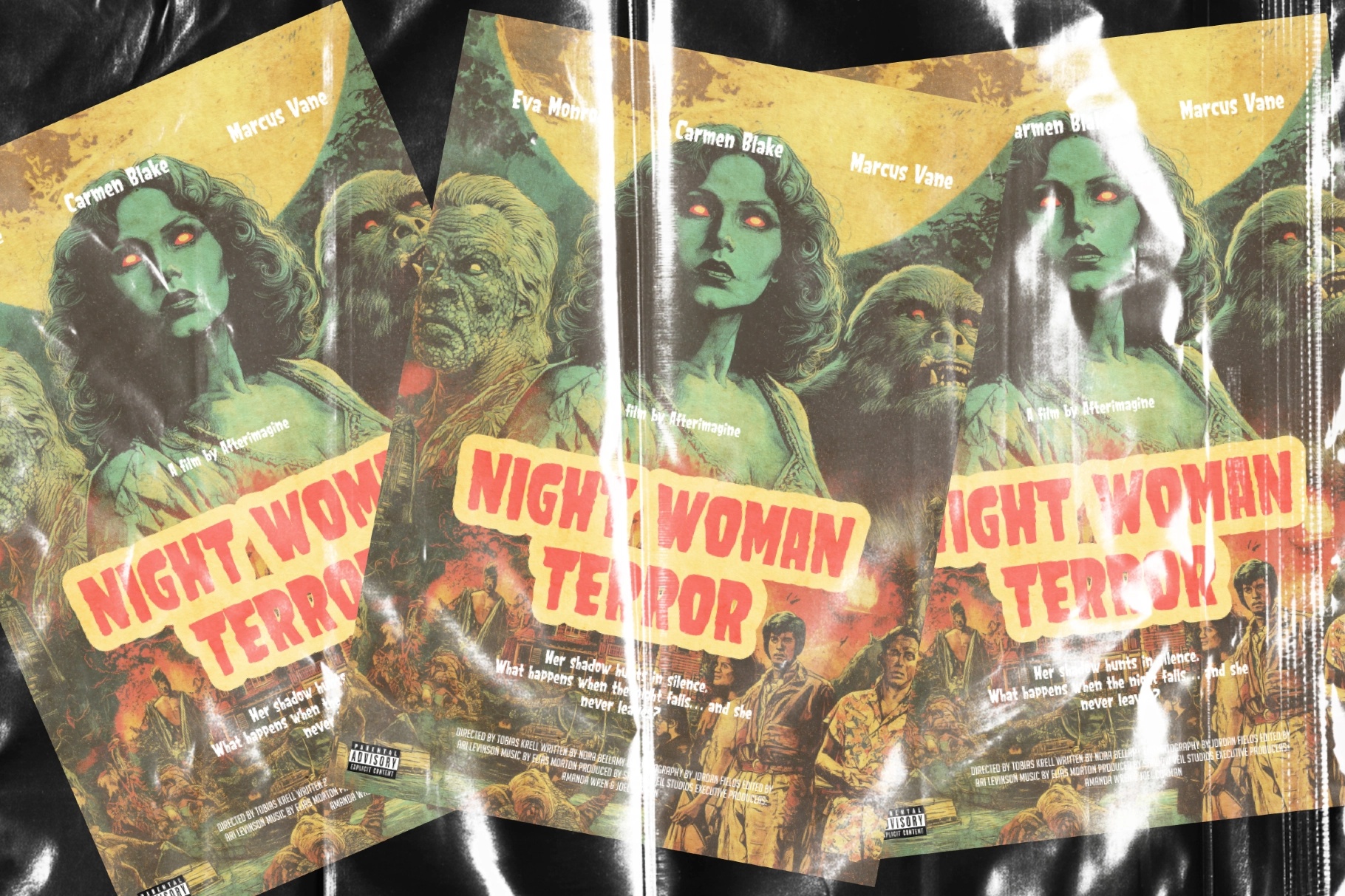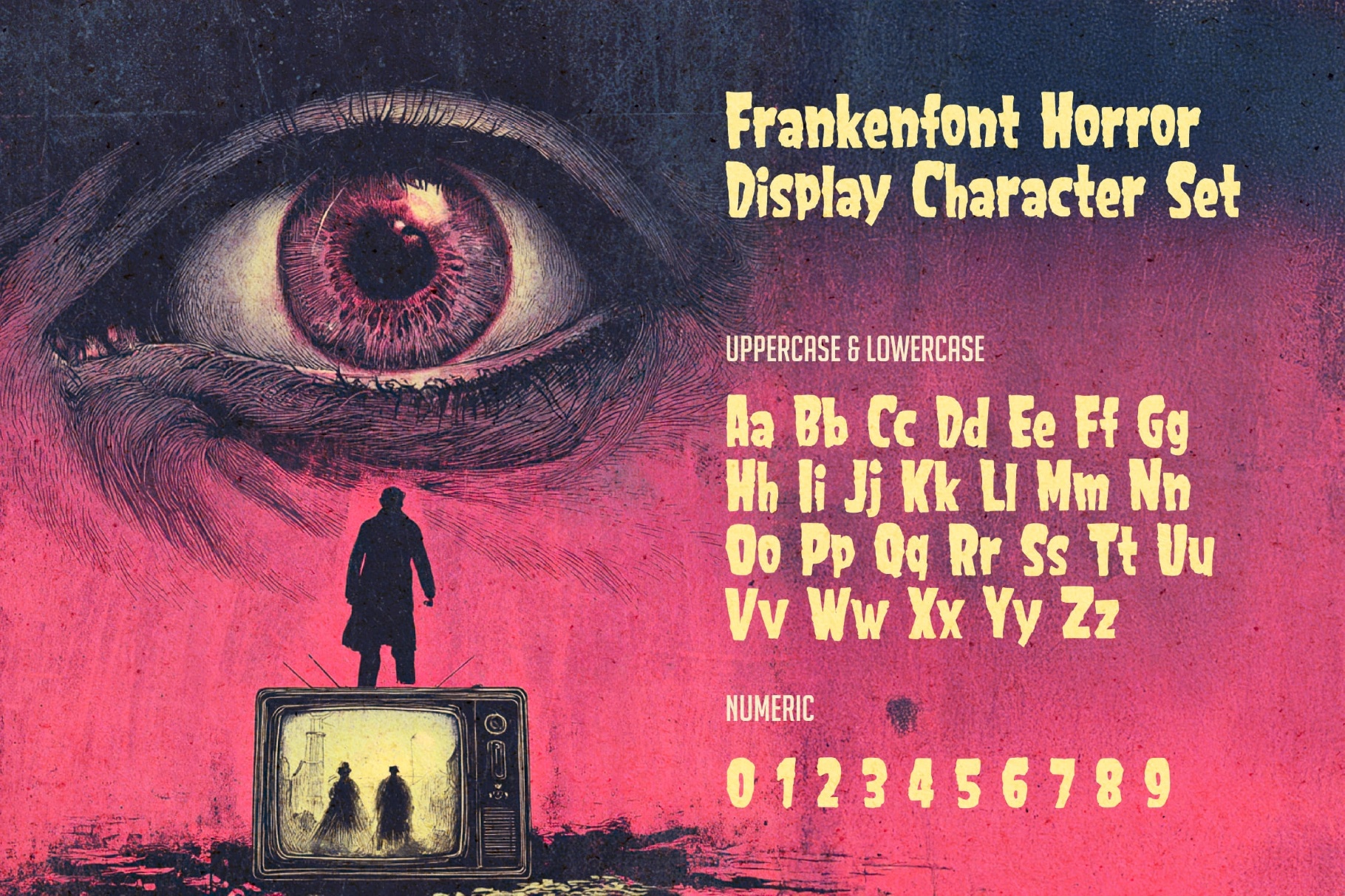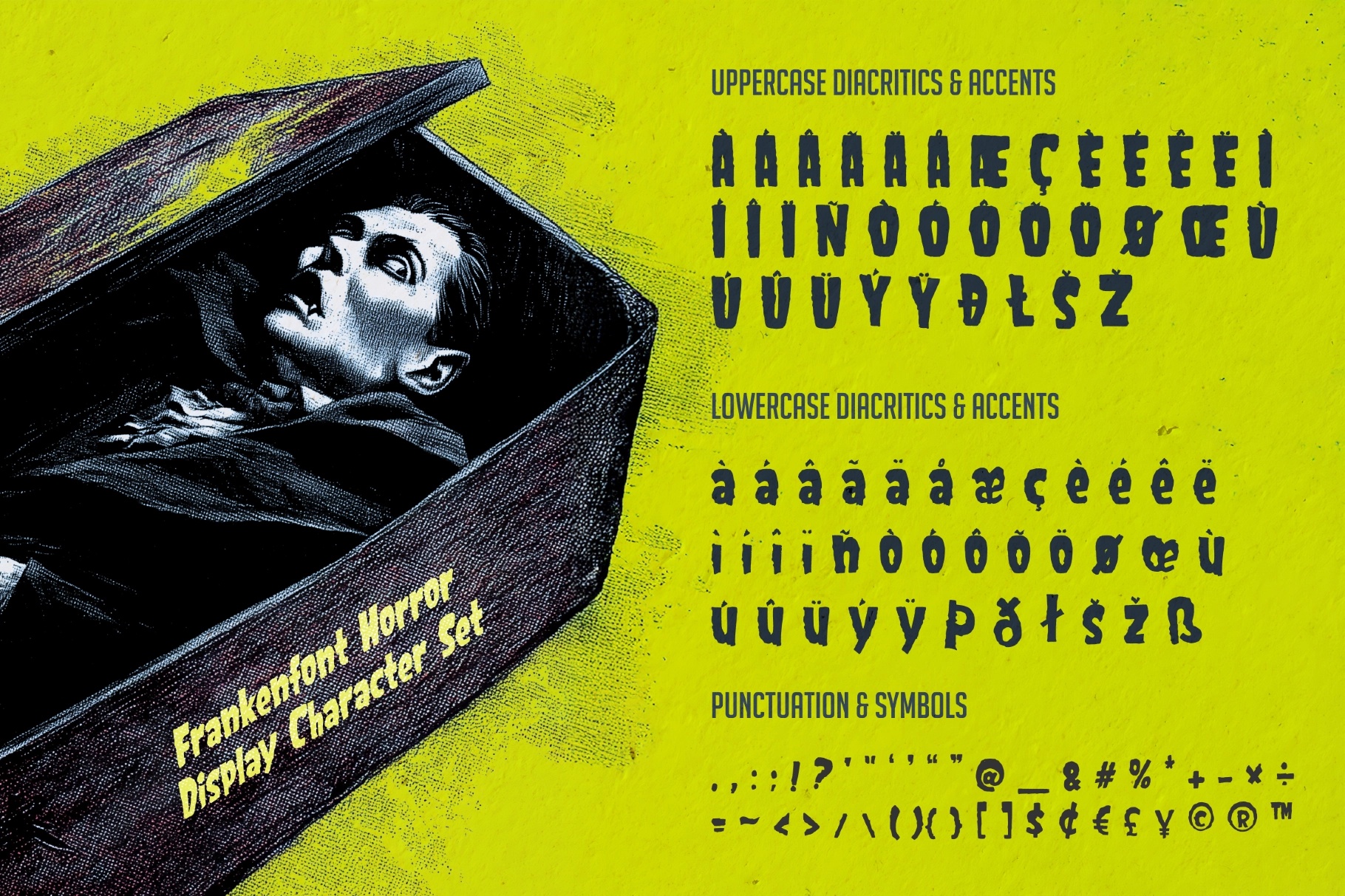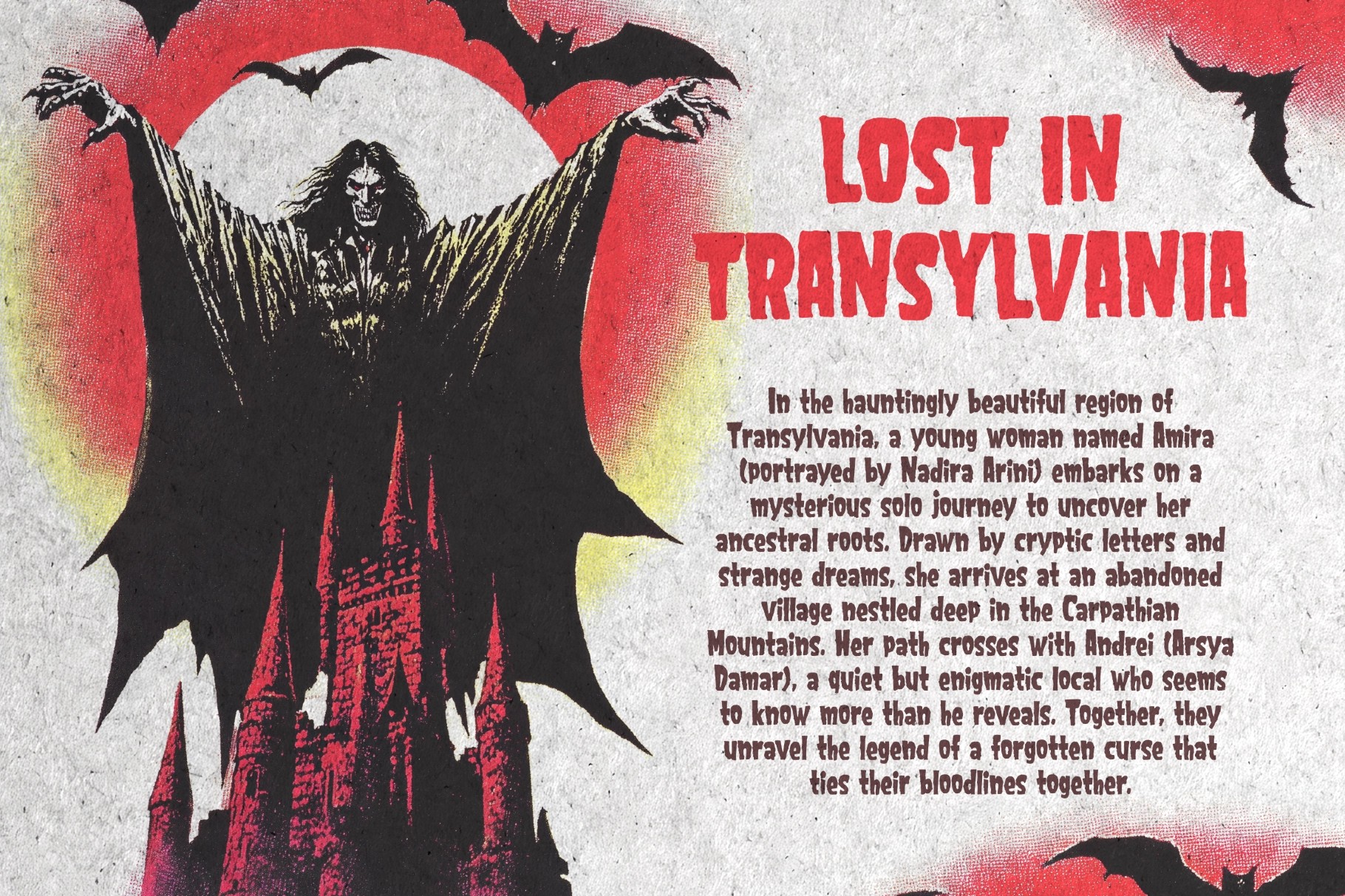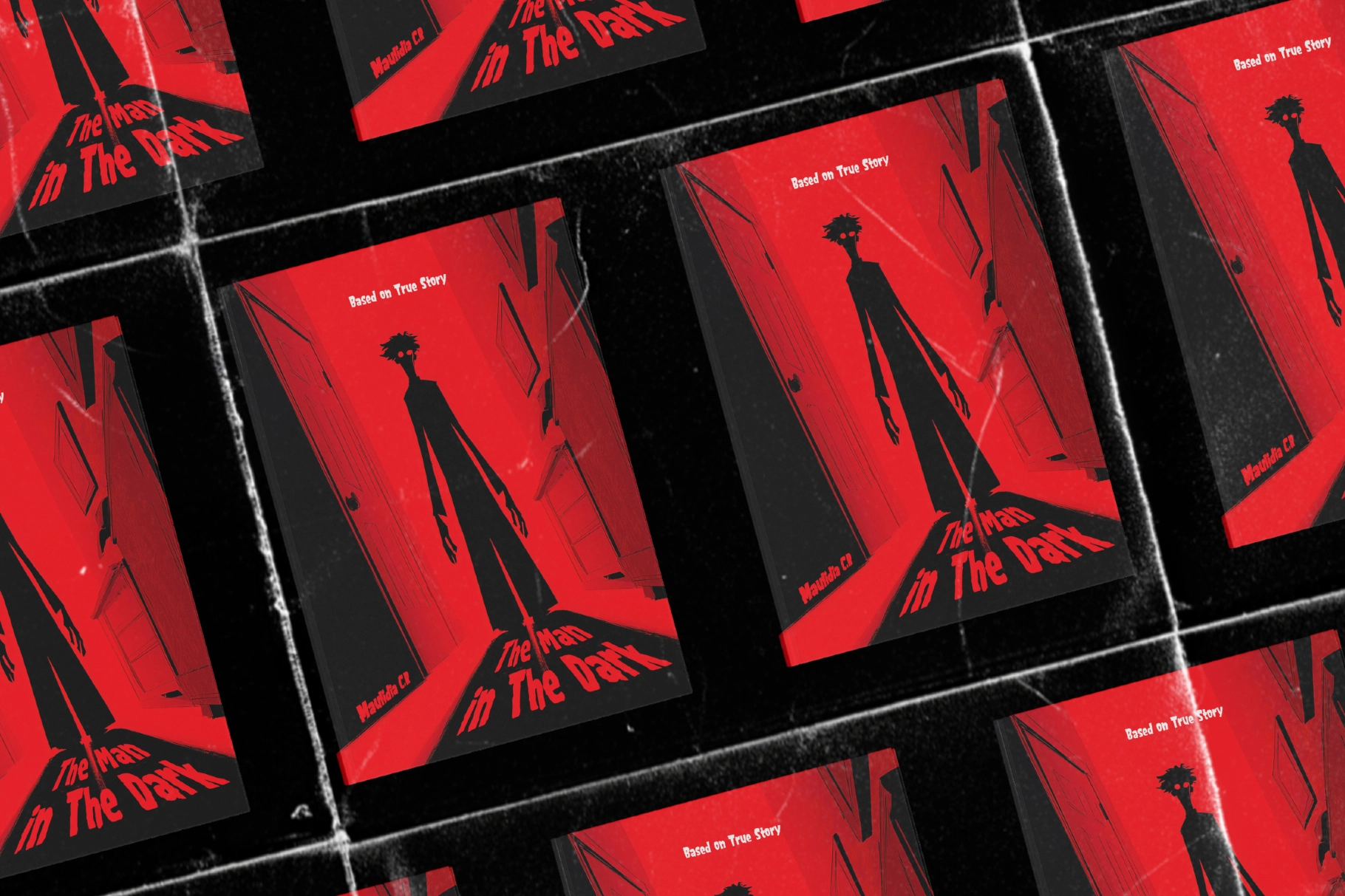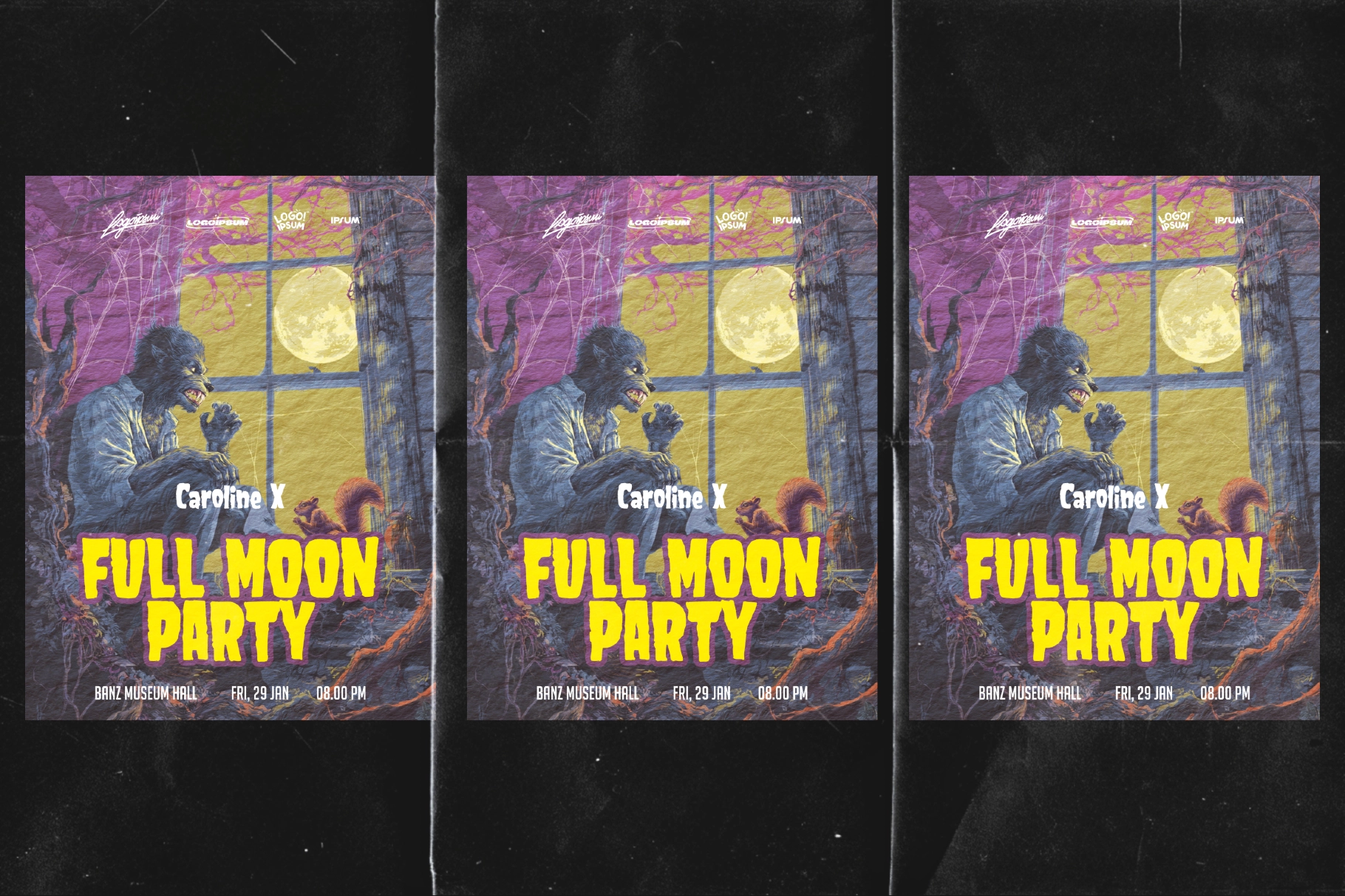
Frankenfont Classic Horror Display Font
FrankenfontDisplay
Frankenfont is a bold horror display font inspired by classic monster movies and stitched typography aesthetics. Featuring jagged edges, irregular cuts, and spooky curves, it’s perfect for Halloween posters, horror movie titles, haunted house flyers, or any design that needs a creepy, stitched-up vibe.